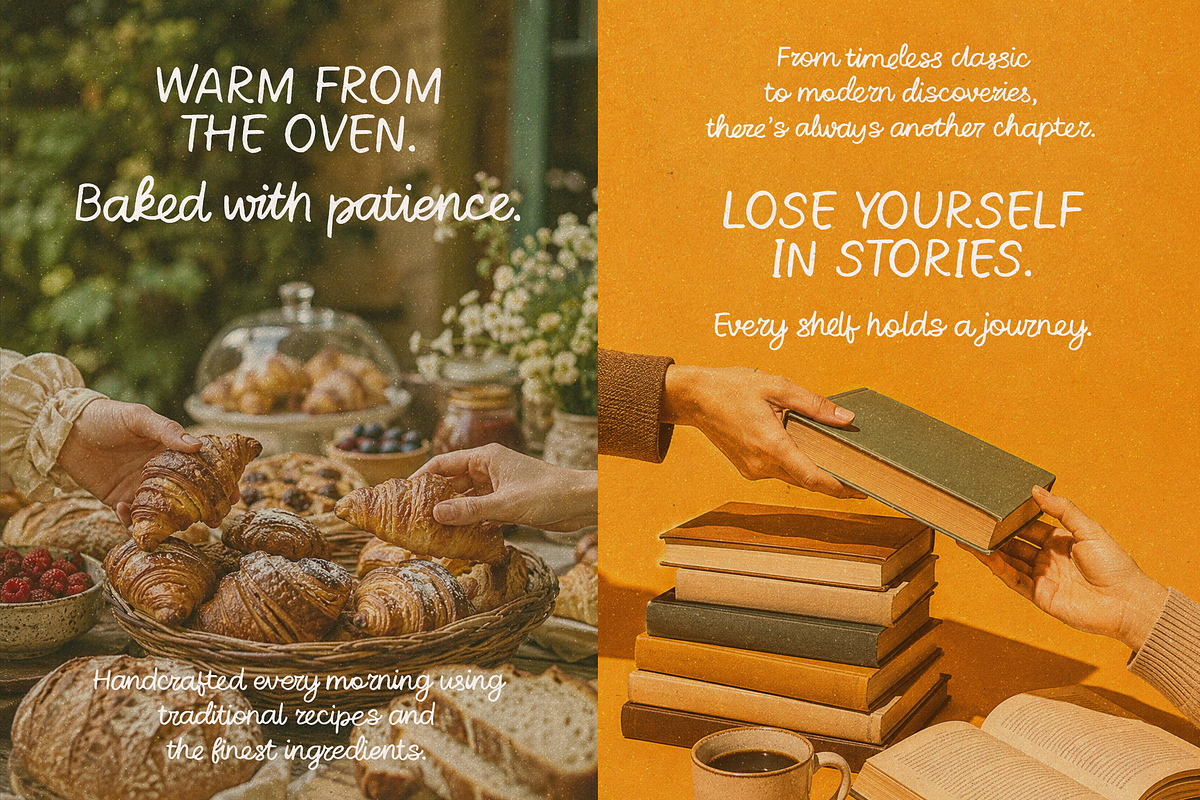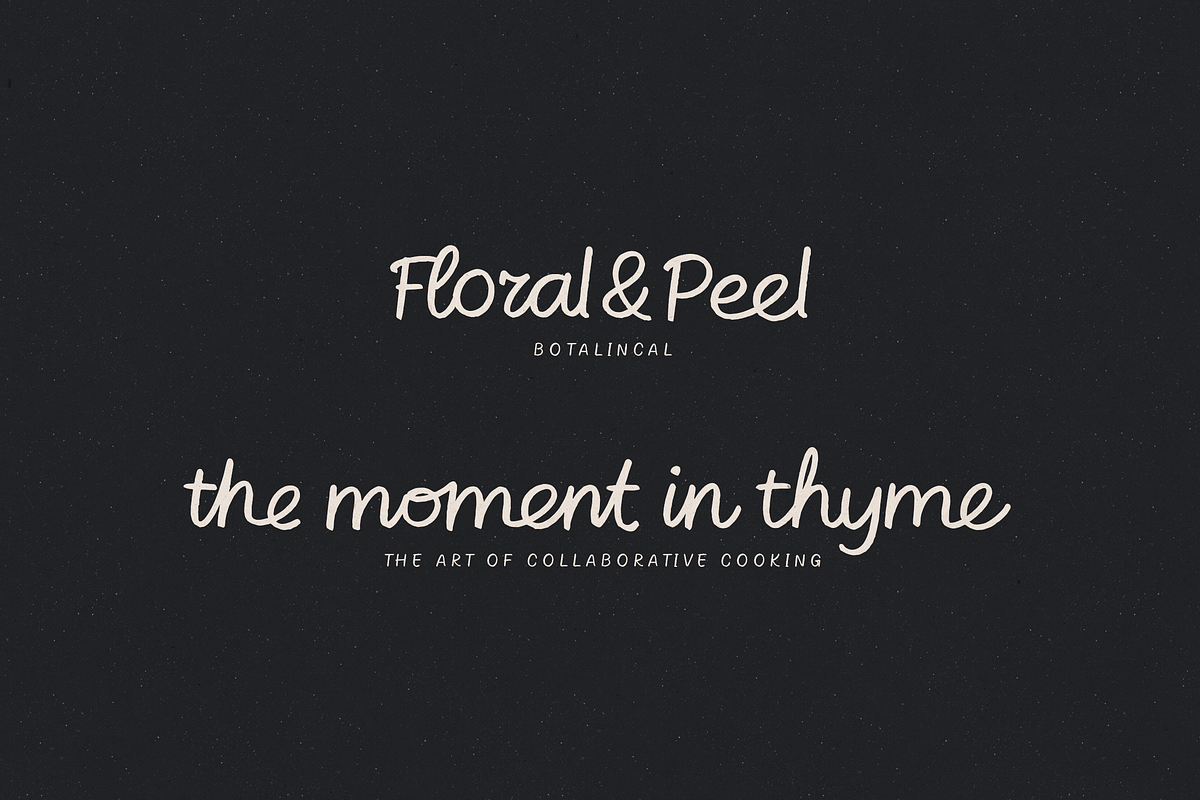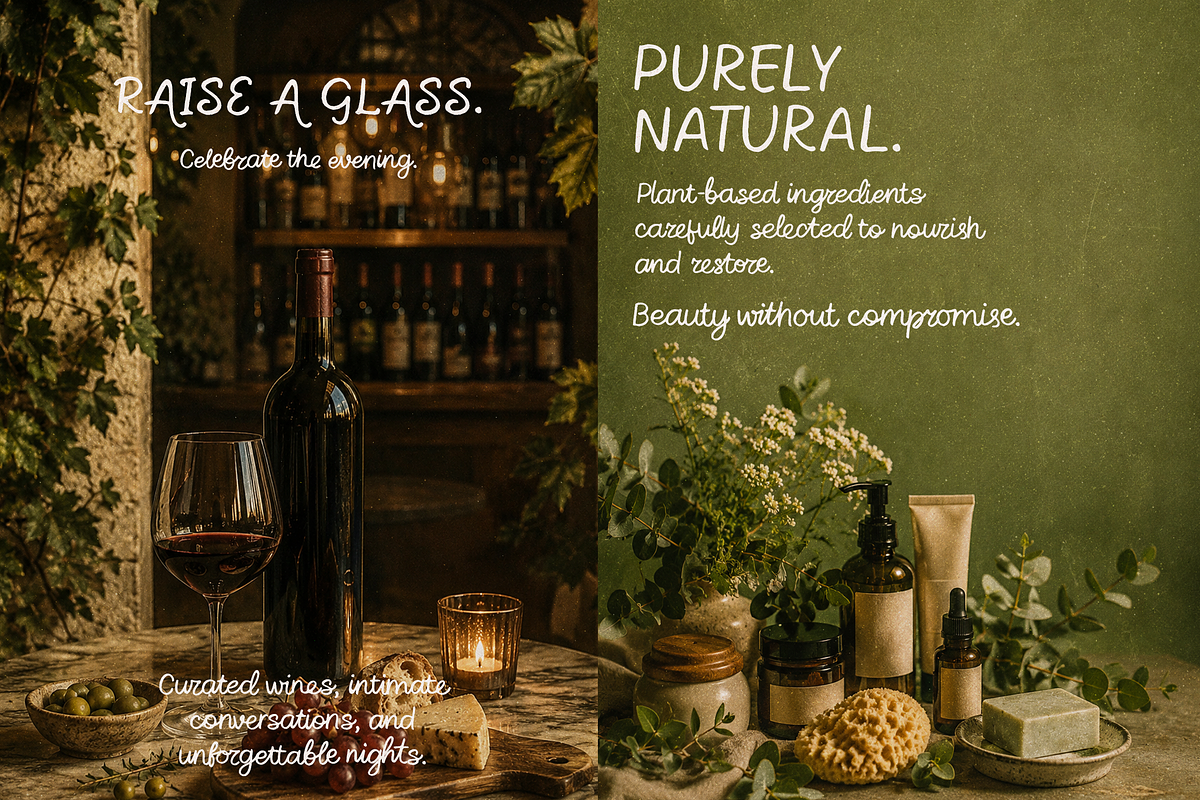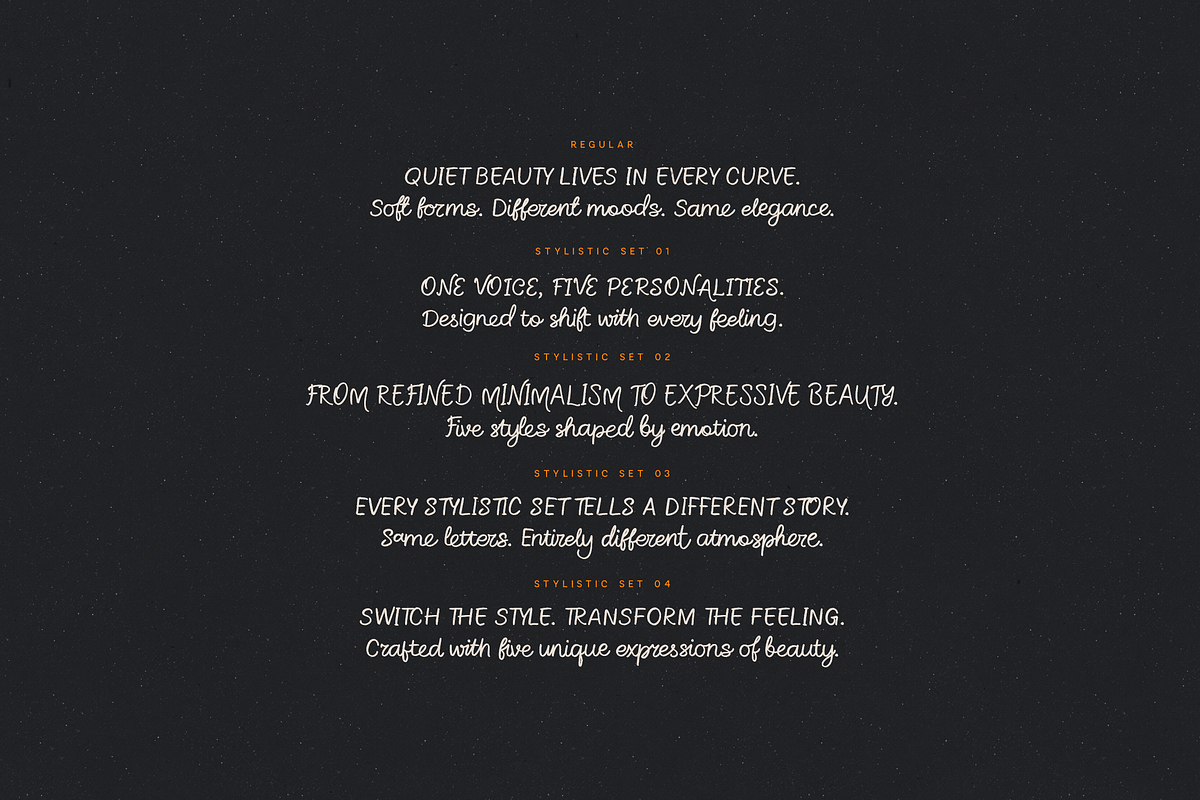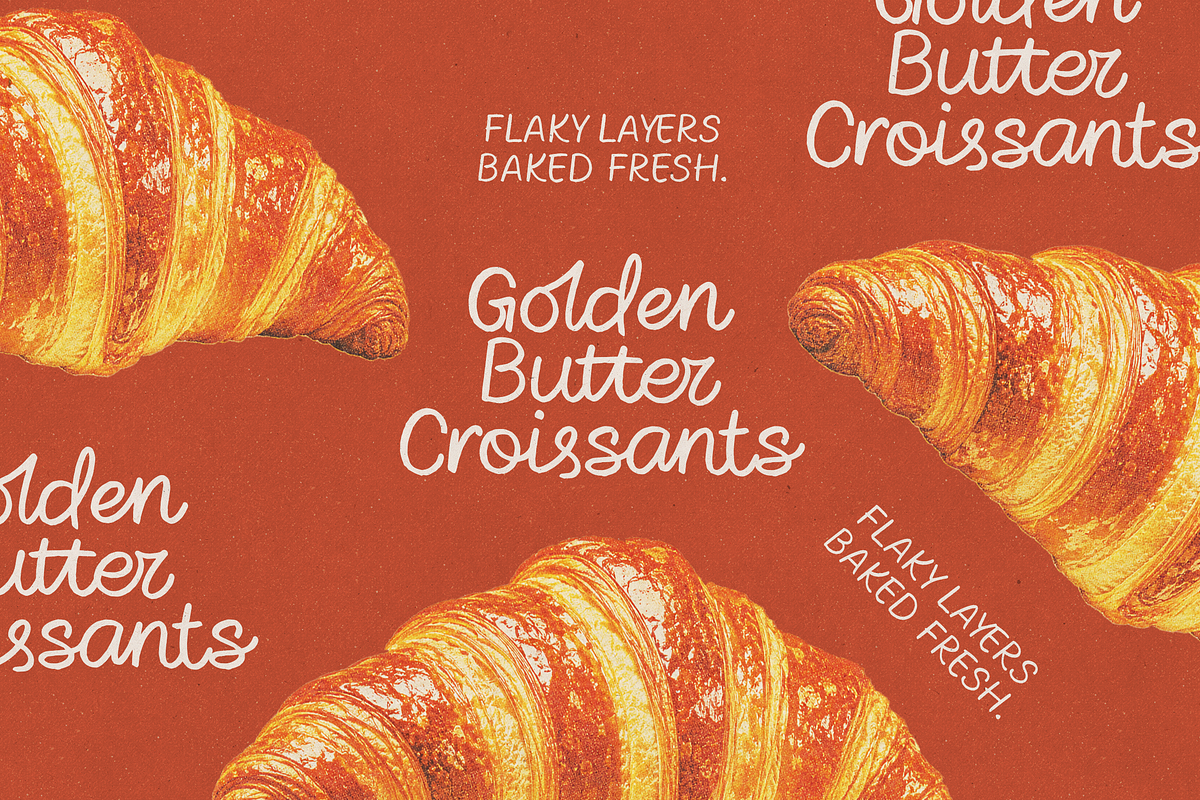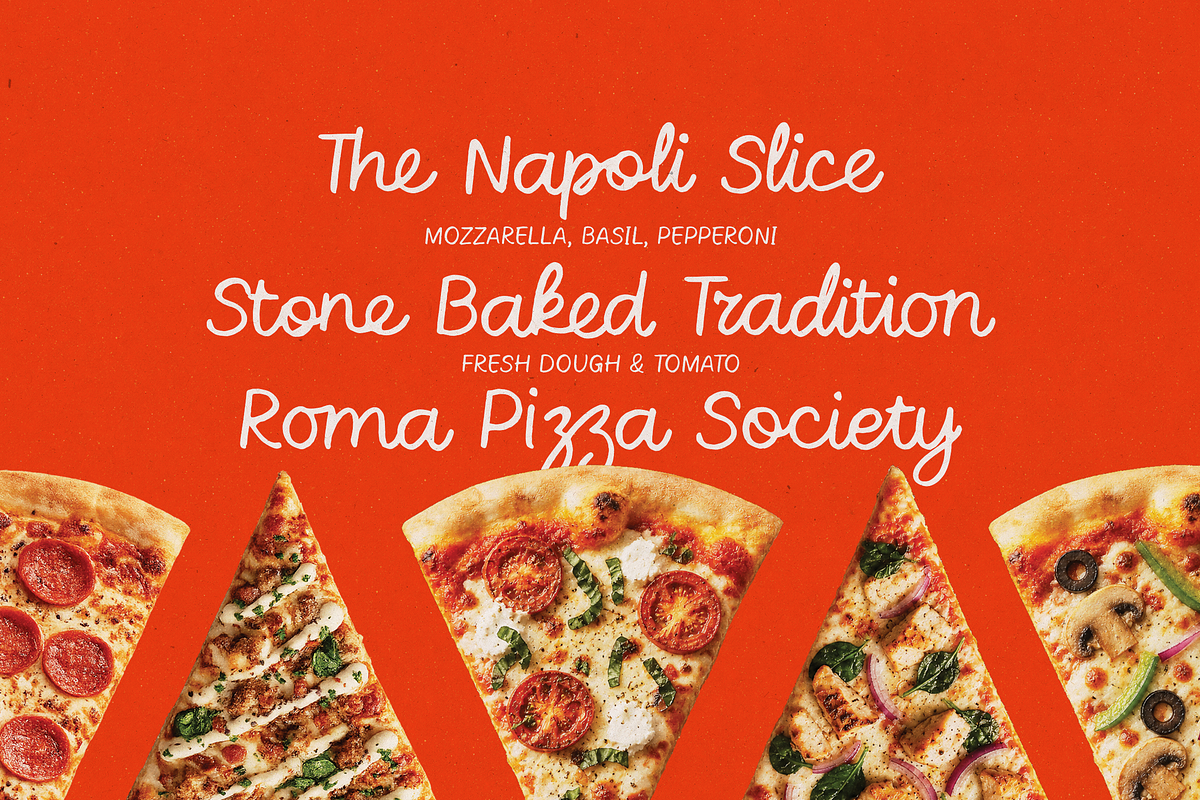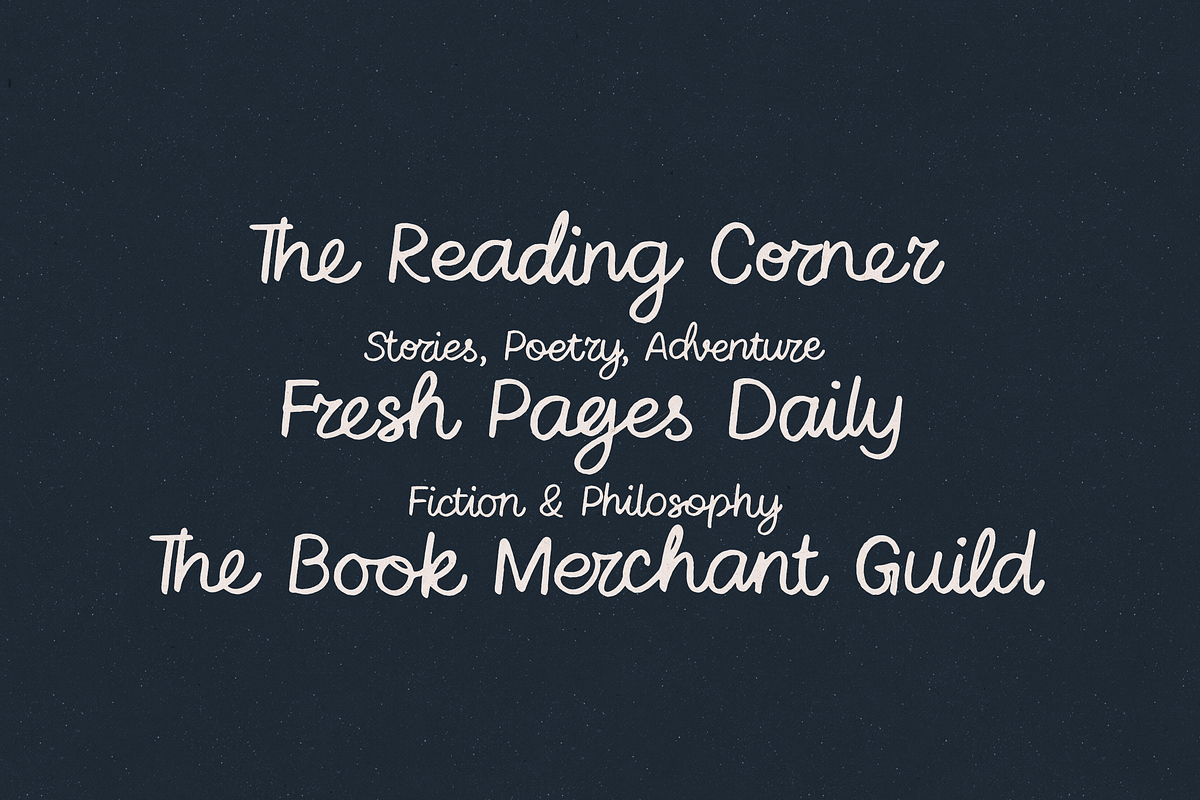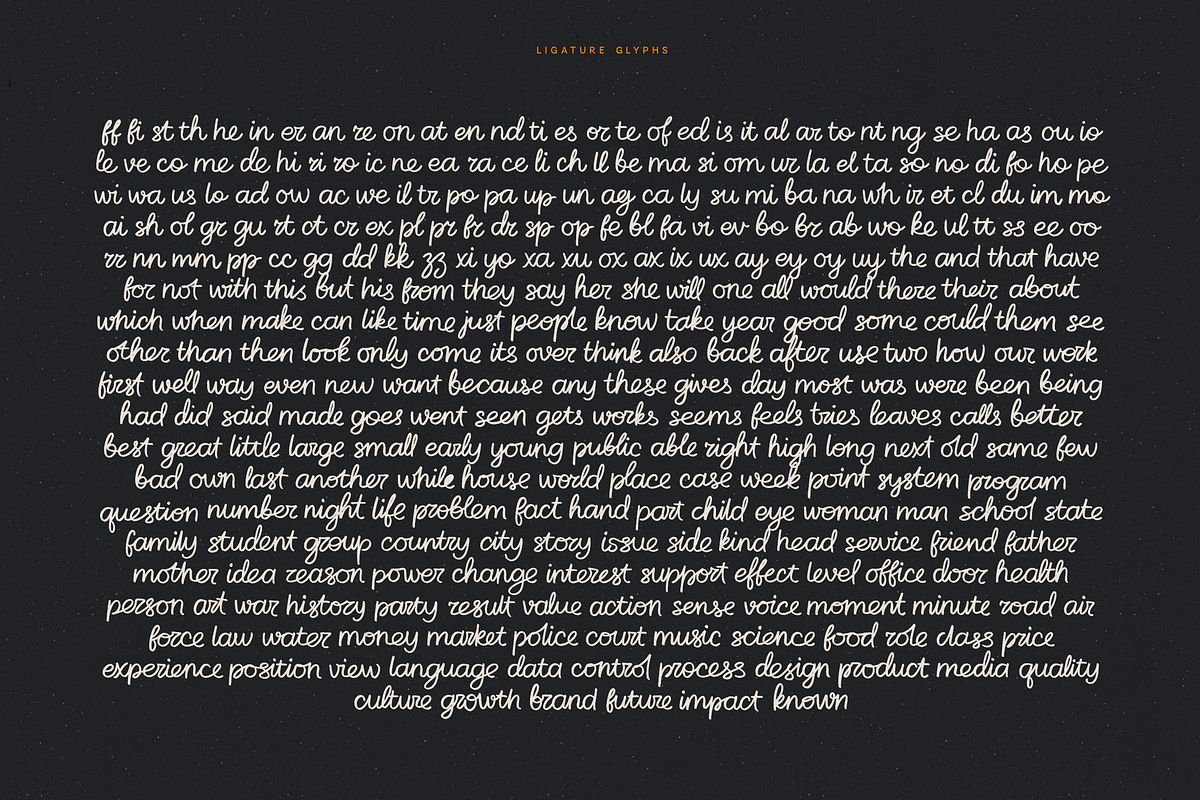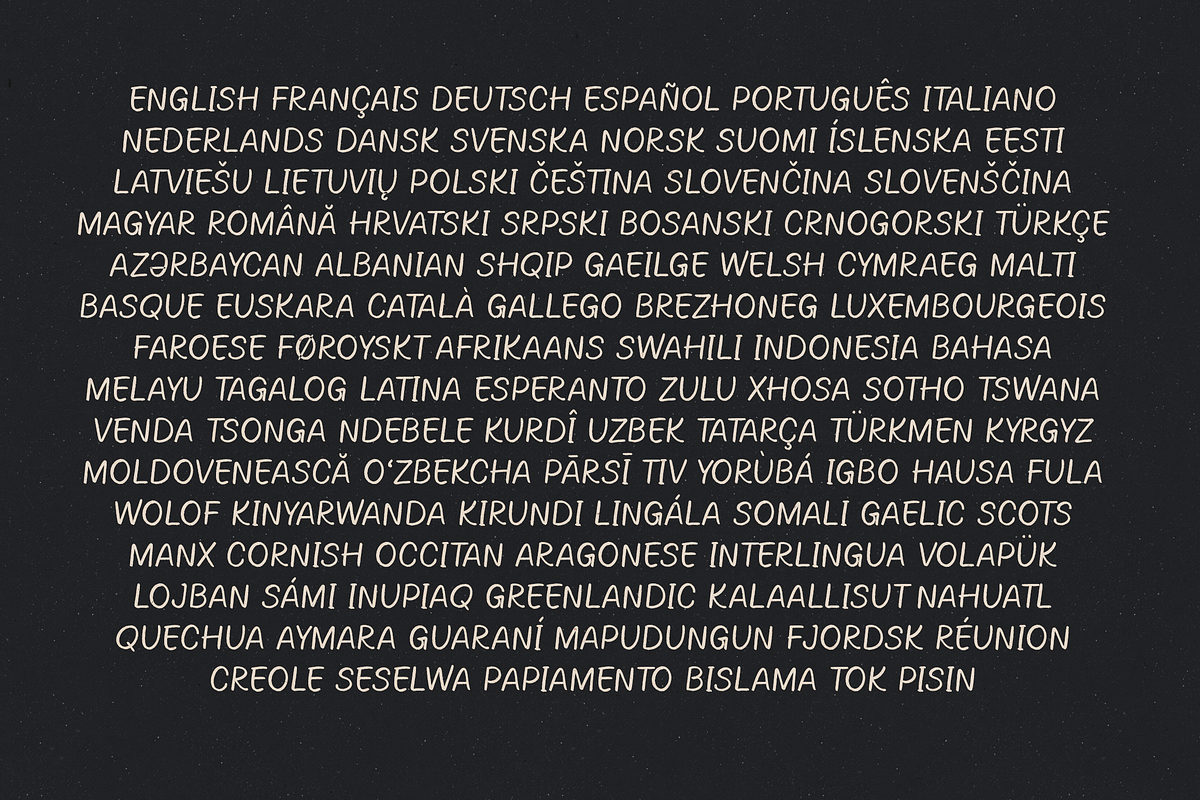
Newstalgia - Handwritten Font Script
Meet Newstalgia, an authentic handwritten typeface designed to capture the warmth, charm, and personality of real handwriting. Inspired by handwritten notes, vintage journals, cozy cafés, boutique branding, and nostalgic storytelling, Newstalgia brings a naturally human touch to every project.
Crafted with attention to detail, this versatile script combines effortless readability with organic imperfections, creating typography that feels genuine, approachable, and full of character. Whether you're designing logos, packaging, social media content, book covers, invitations, restaurant menus, or lifestyle branding, Newstalgia delivers a timeless handwritten aesthetic that feels both modern and nostalgic.
What makes Newstalgia truly special is its extensive collection of 300+ handcrafted ligatures, allowing letters to flow naturally and creating beautifully realistic handwritten text. The included 4 stylistic sets provide multiple personality variations, giving you the freedom to switch between subtle, elegant, playful, expressive, or refined looks with just a few clicks.
Supporting 87+ languages, Newstalgia is built for creators worldwide and includes a wide range of accented characters for international projects.
Authentic handwritten script font
300+ handcrafted ligatures
4 unique stylistic sets
Uppercase & lowercase characters
Numerals and punctuation
Multilingual support (87+ languages)
OpenType features
Smooth natural letter connections
Perfect for branding and editorial design
Newstalgia isn't just a font - it's a storytelling tool. Every curve, connection, and ligature was designed to evoke emotion, authenticity, and human connection. Whether you're creating a premium brand identity or a heartfelt personal project, Newstalgia helps your words feel more personal, memorable, and beautifully imperfect.
Bring warmth, nostalgia, and handcrafted elegance to your next creative project with Newstalgia.